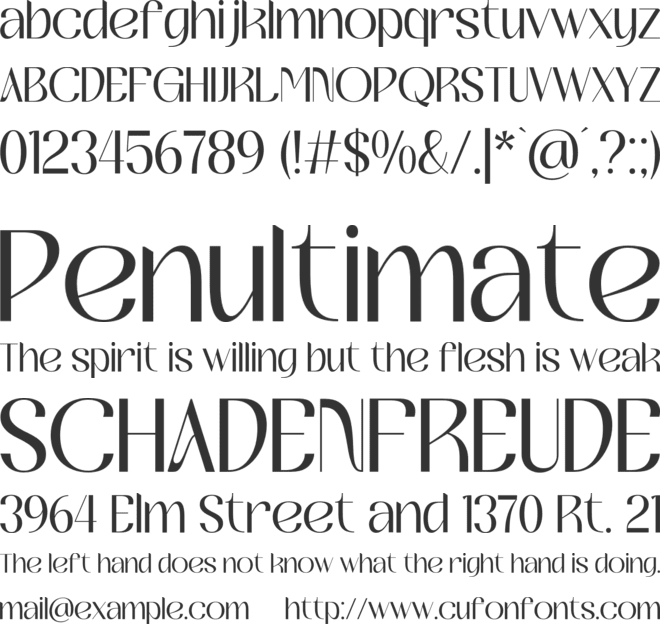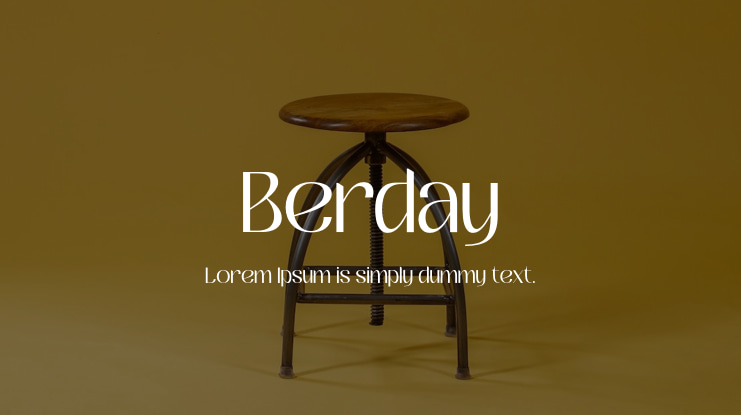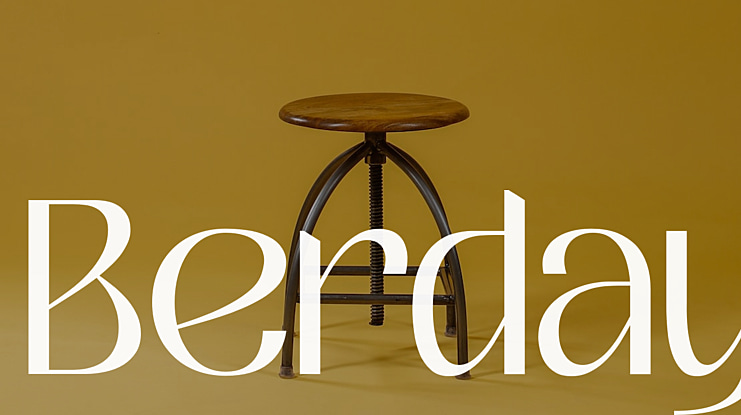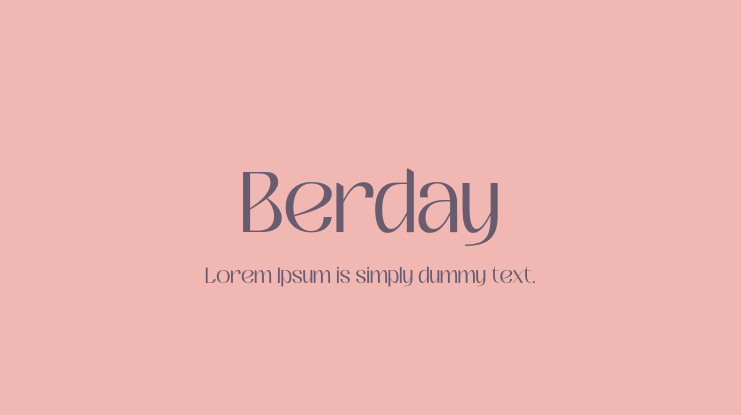
Berday Font
Berday Beautiful is a stunning font that seamlessly combines the classic simplicity of a minimalist sans serif typeface with a contemporary edge. Created with meticulous care, this font captures an essence of refined elegance, all while exuding a sleek and immaculate aesthetic.